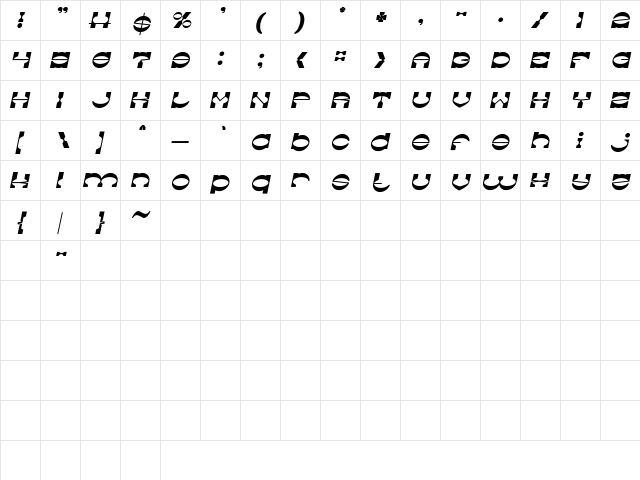
The Machine Gun Italic
Design Context for The Machine Gun Typeface
The Machine Gun is a composed and adaptable typeface that performs quietly and consistently across a wide range of design contexts. The dynamic lean of this cut emphasises speed and emphasis in any layout.
Pro Tip: Use The Machine Gun for emphasis, pull quotes, and subheadings where its slanted energy can add rhythm to the layout.